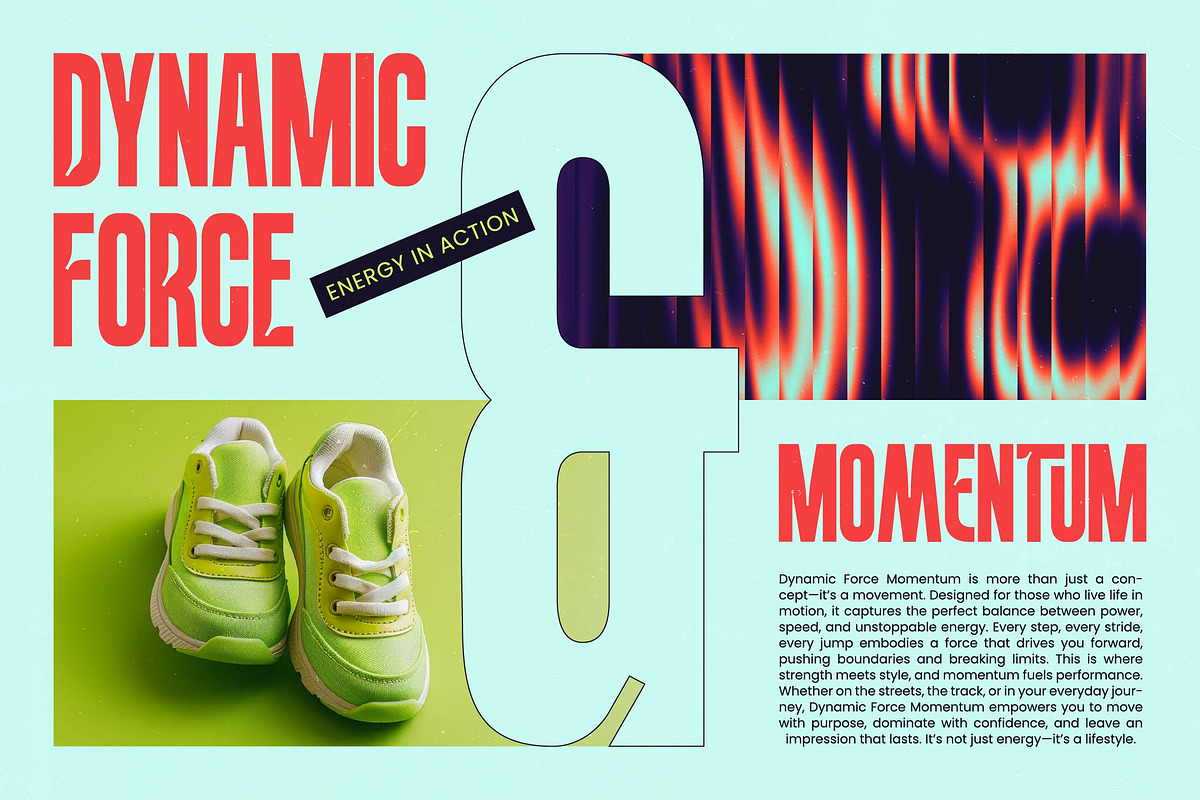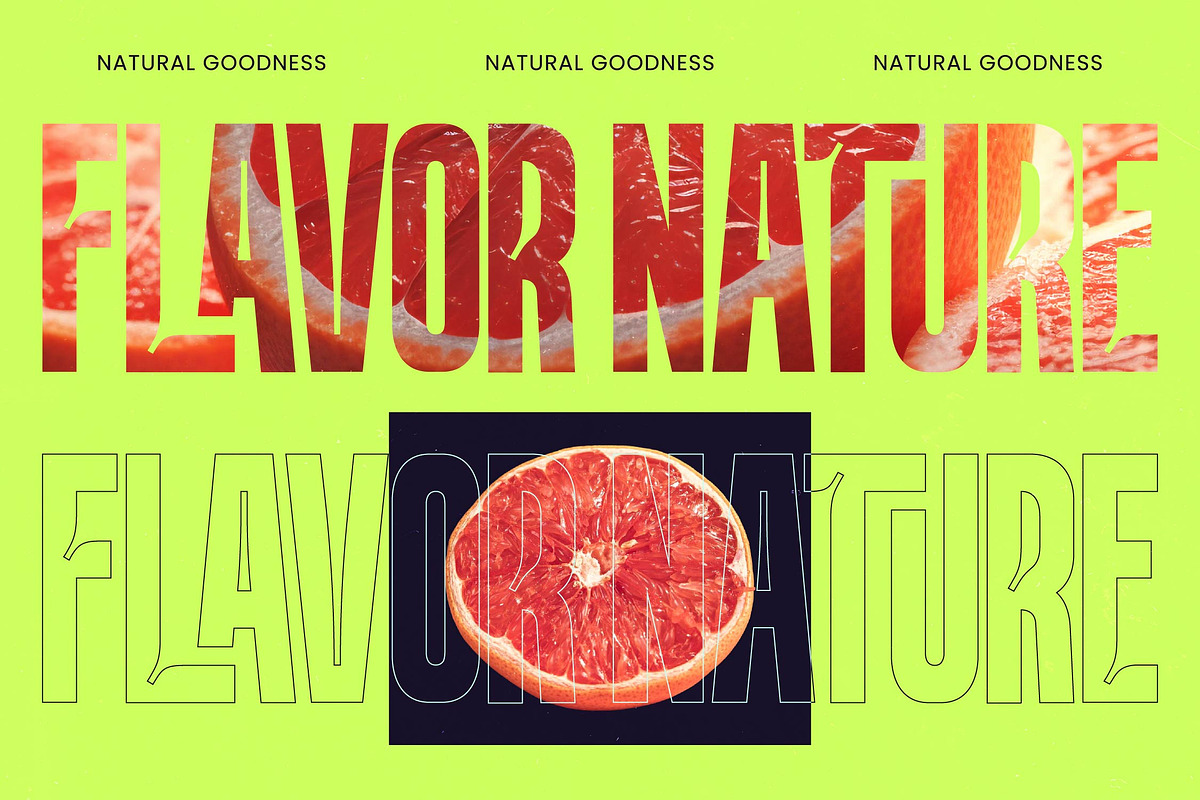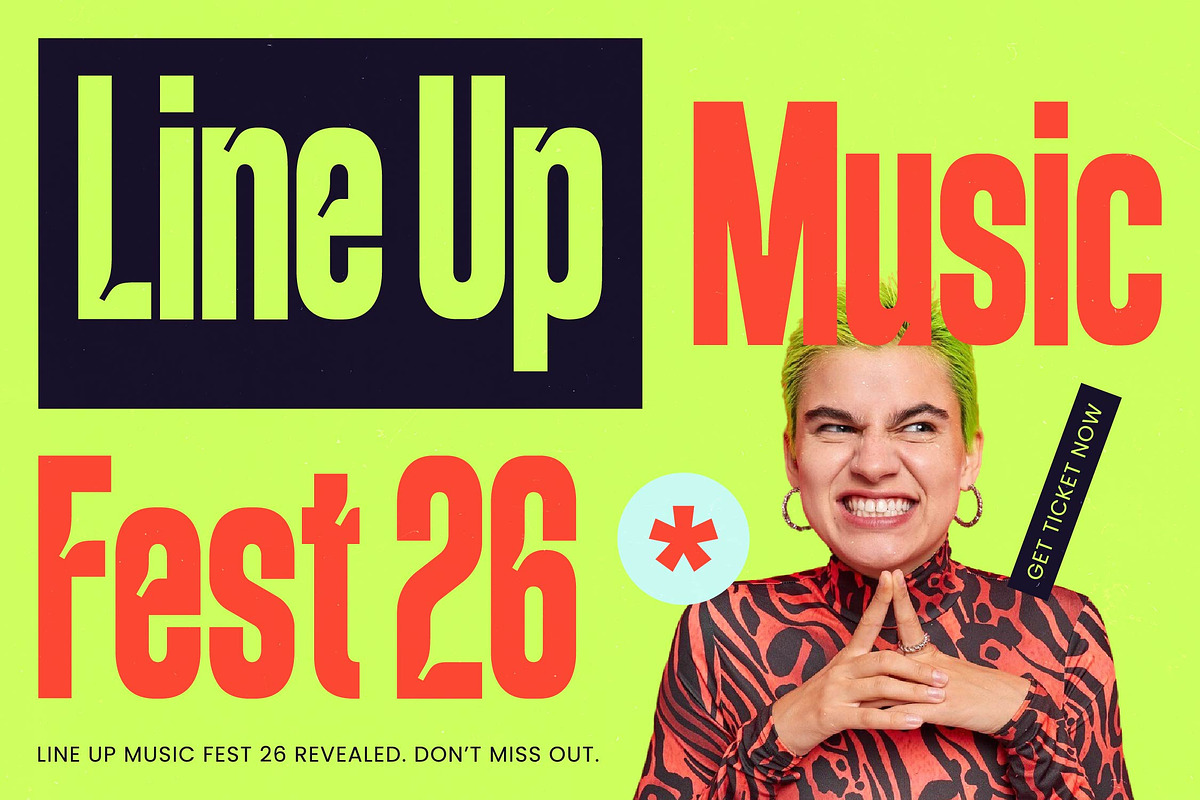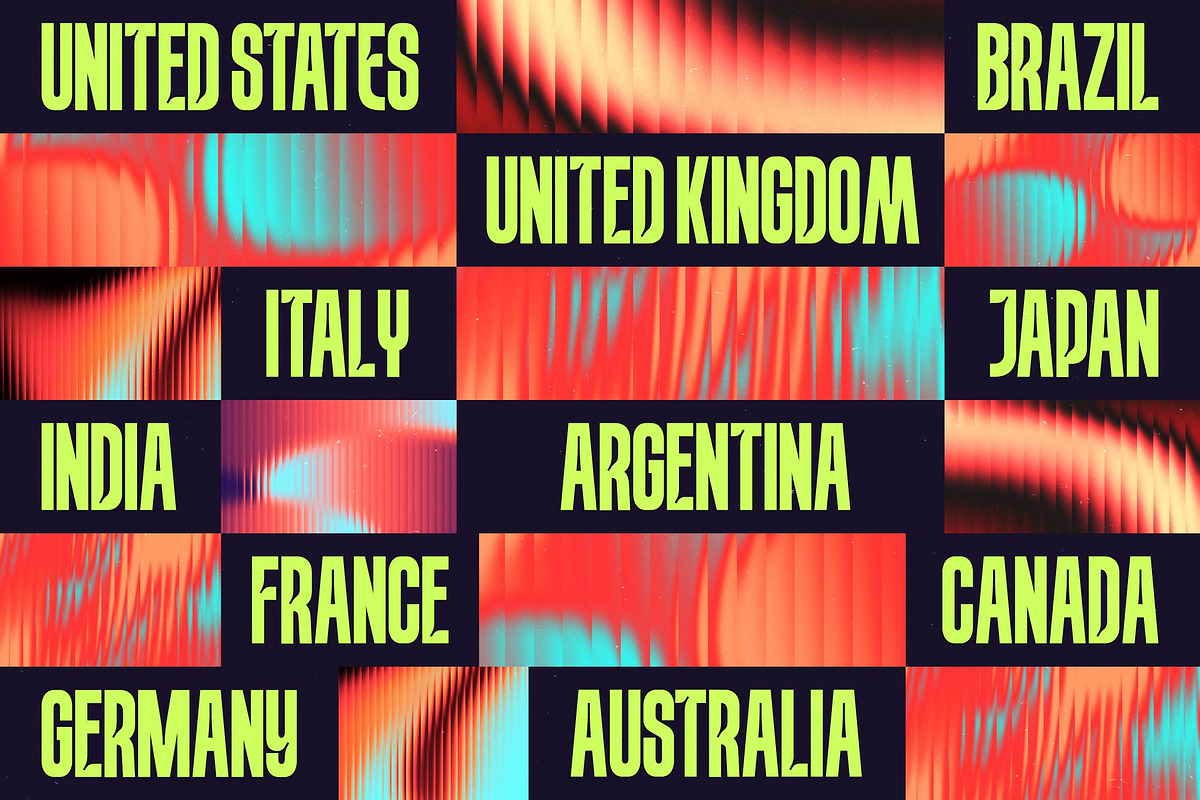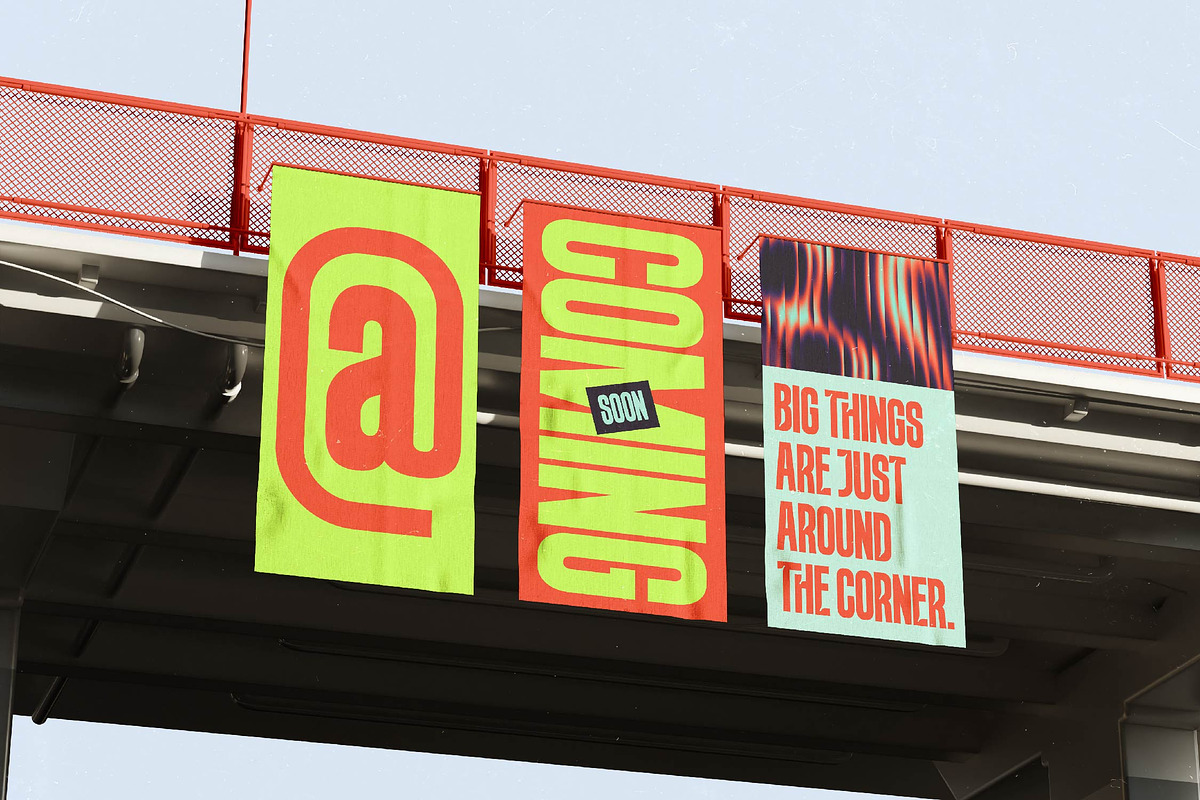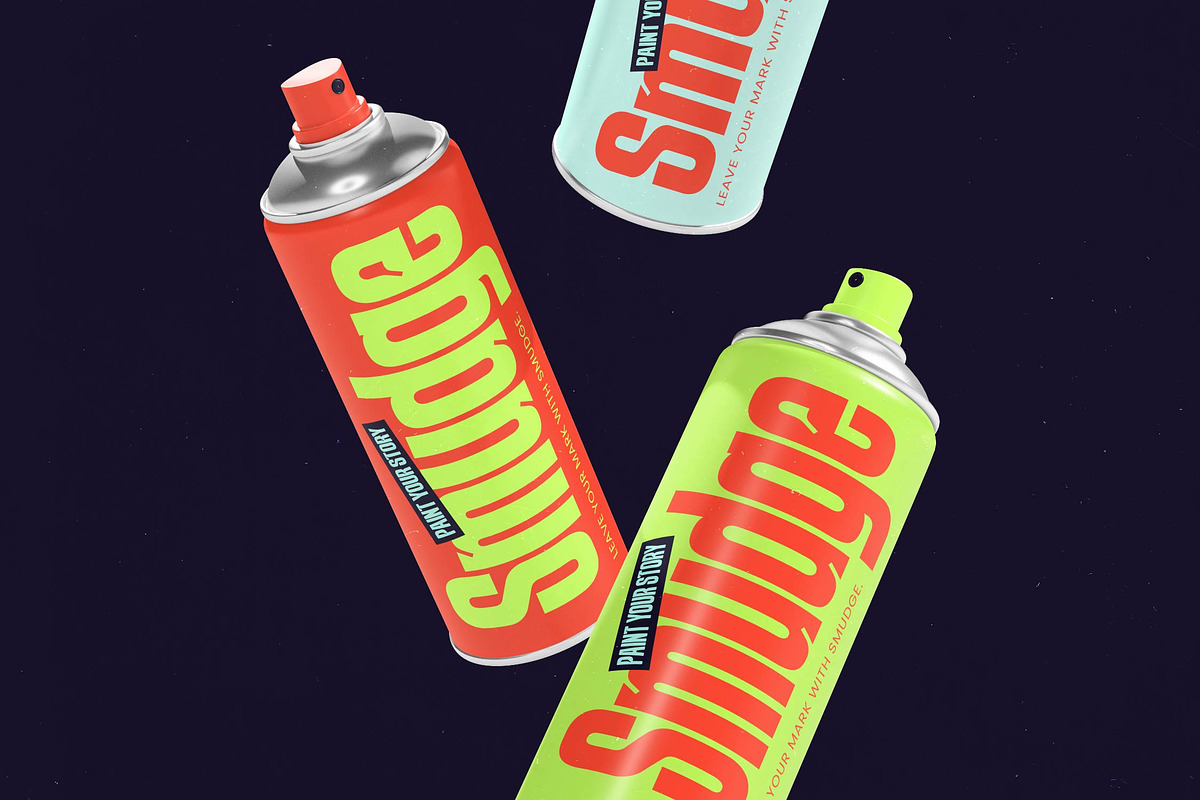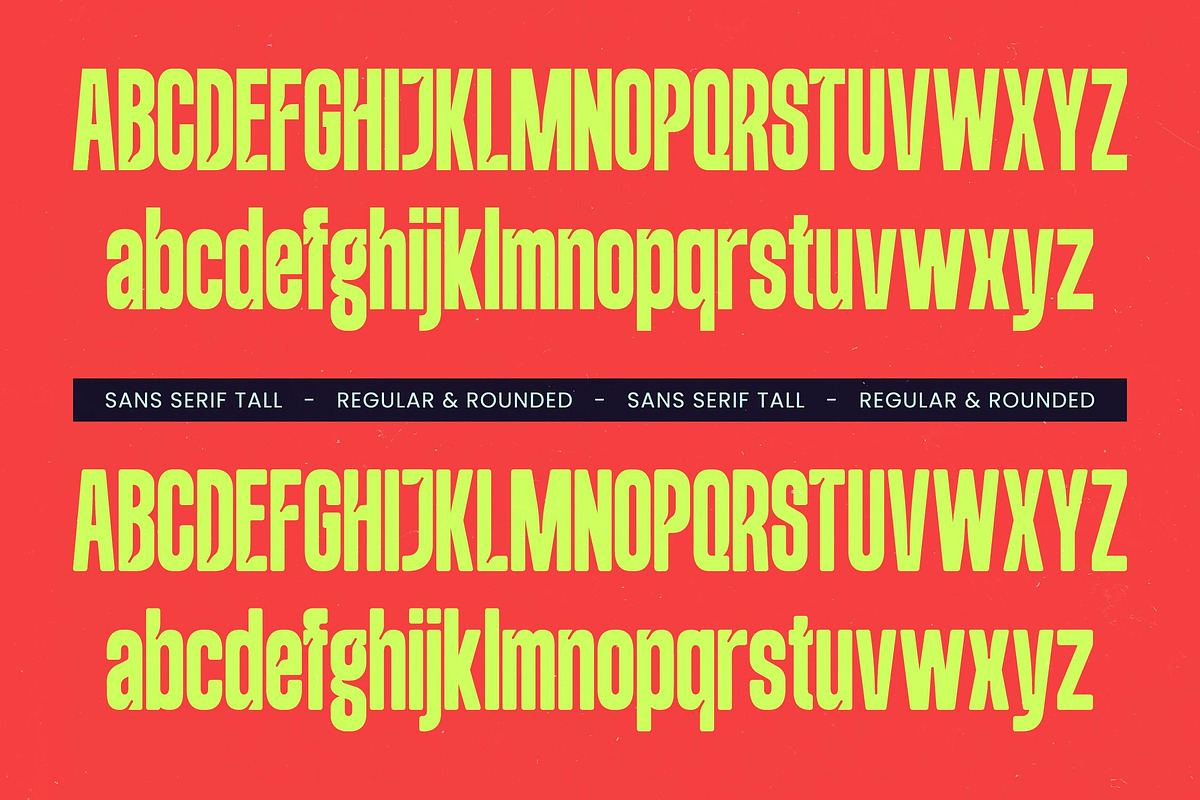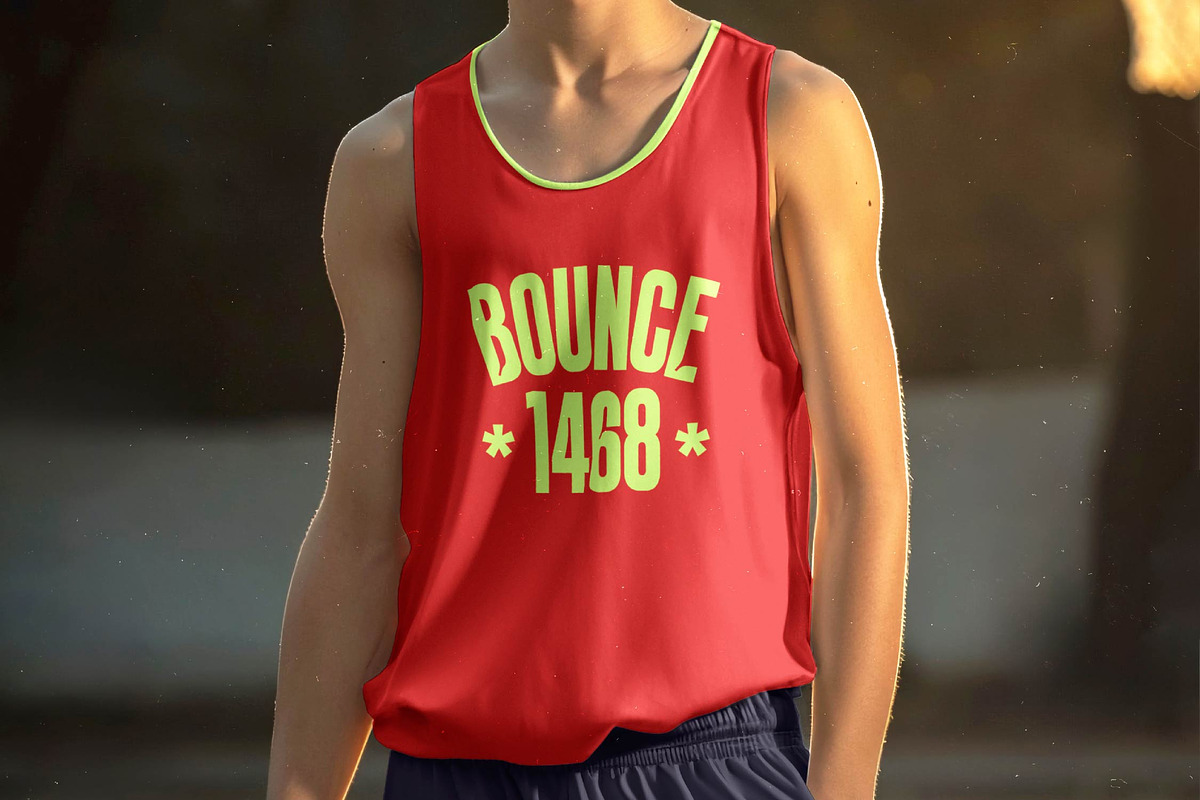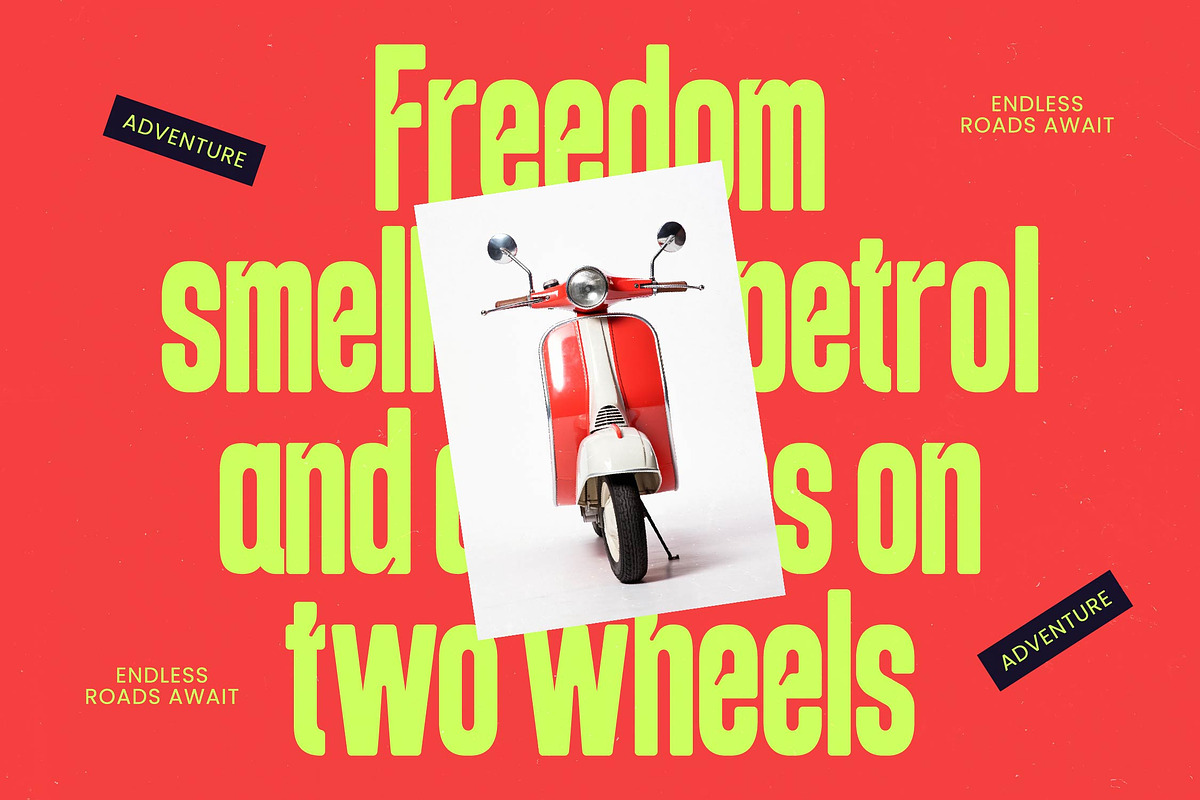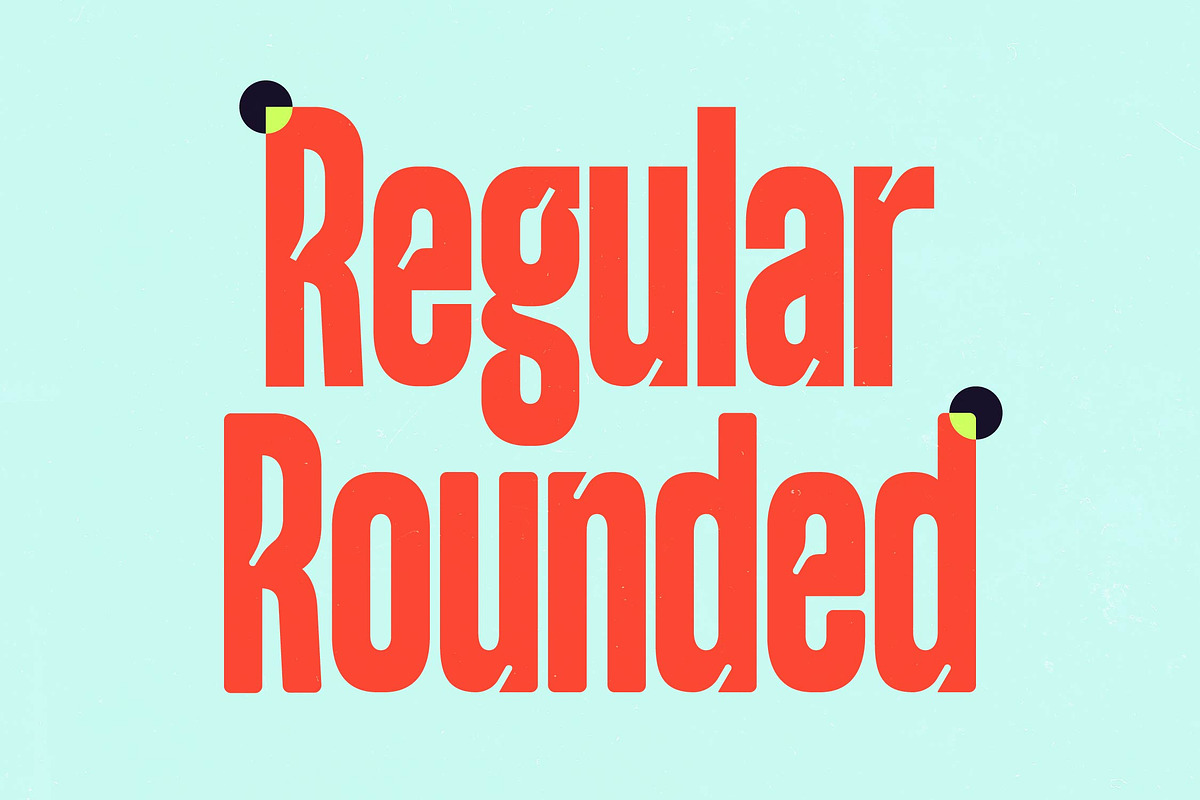
Beqarins Sans Serif Tall
Beqarins – Sans Serif Tall , Elevate your visual identity with a font that demands attention through its striking vertical presence. Beqarins – Sans Serif Tall is a masterclass in modern display typography, featuring an ultra-condensed silhouette that exudes confidence and authority. Designed for creators who refuse to blend into the background, this typeface balances geometric precision with a contemporary edge, making it an essential tool for any high-impact project.
Experience unparalleled creative flexibility with a robust set of OpenType features that allow for deep customization. With its extensive multilingual support, Beqarins – Sans Serif Tall adapts seamlessly across global markets, making it incredibly versatile for international projects. The inclusion of 17 unique ligatures and 13 stylish alternates ensures that every headline remains distinct, providing a bespoke aesthetic that is both professional and visually captivating.
Precision engineering meets artistic flair in every character of this versatile typeface family. Available in both Regular and Rounded versions, Beqarins – Sans Serif Tall offers designers the ability to pivot between sharp, edgy designs and softer, approachable layouts without losing its signature tall profile. This modern sans-serif ensures maximum legibility and readability even at extreme proportions, securing its place as a powerhouse for contemporary graphic design.
Command the spotlight across a diverse range of premium design applications where visibility is paramount. Beqarins – Sans Serif Tall is perfect for luxury branding, bold packaging, and editorial layouts that require a sophisticated yet powerful voice. Whether you are developing streetwear logos, high-energy motion graphics, or modern web interfaces, this typeface delivers a refined aesthetic that ensures your brand message is heard loud and clear in a crowded marketplace.